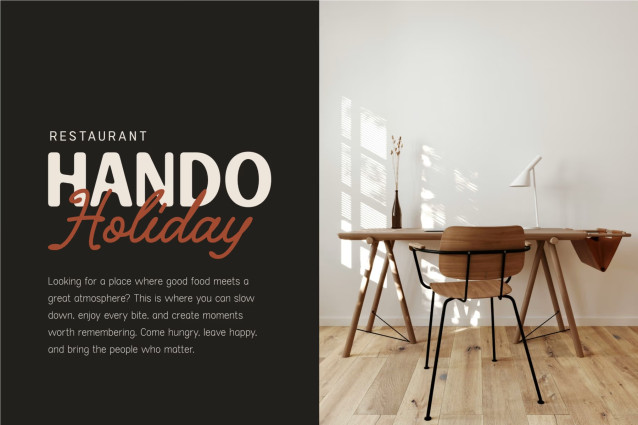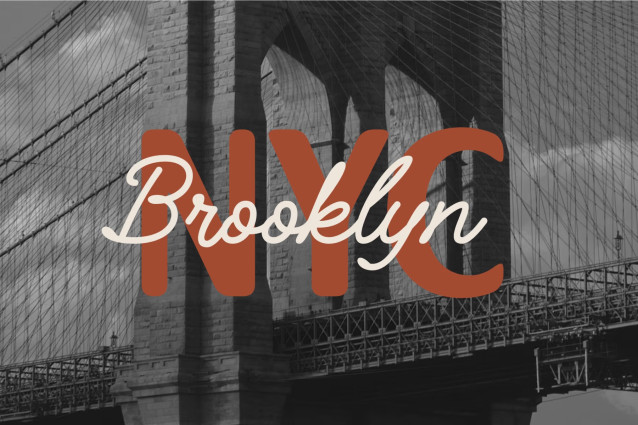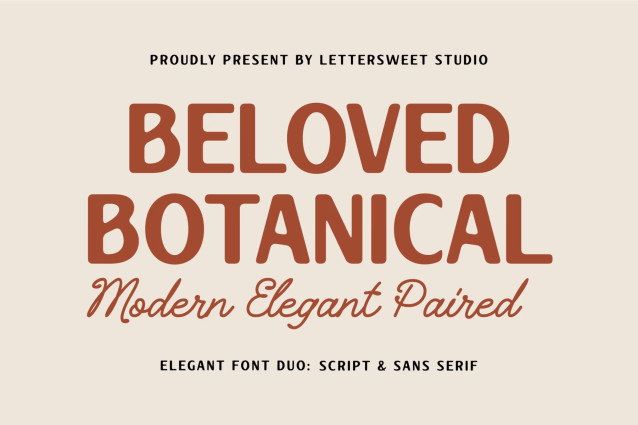
Beloved Botanical Font
Beloved Botanical Font is a sophisticated font duo crafted to bring effortless elegance into your design. Combining a bold, modern sans serif with a flowing, natural script, this pair creates a striking contrast that feels both refined and organic.
This isn’t just another “pretty font.” It’s built to help your design look premium without overthinking the composition. The clean sans serif gives structure and readability, while the script adds a personal, emotional touch—perfect for creating designs that feel both professional and human.